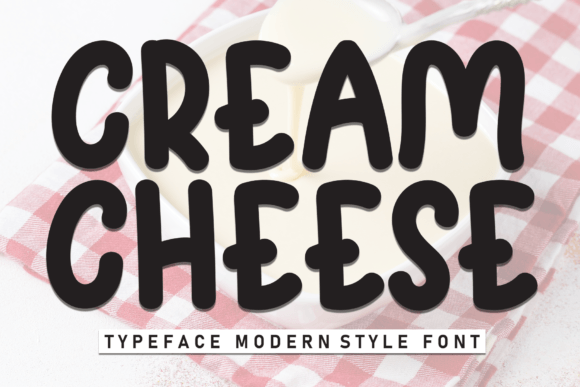
Introducing Cream Cheese Font, a sweet and friendly handwritten display font that's sure to add a touch of charm to any design. Blending classic beauty with a modern twist, this font exudes a playful elegance that makes it perfect for a wide range of creative projects.
Crafted with the utmost care and attention to detail, Cream Cheese Font is meticulously designed to provide unparalleled readability and visual appeal. Its smooth curves and flowing lines create a sense of movement and energy, capturing the viewer's attention and drawing them into your design. Whether you're working on a wedding invitation, a greeting card, a social media post, or any other creative project, Cream Cheese Font's captivating presence is guaranteed to make an impact.
With its timeless appeal and universal charm, Cream Cheese Font has become a favorite among designers and creatives worldwide. Its versatility knows no bounds, making it the perfect choice for a wide range of projects, including:
* Wedding invitations and save-the-dates
* Greeting cards and thank-you notes
* Logos and branding materials
* Flyers and posters
* Social media posts and graphics
* Website designs and blog headers
* Product packaging and labels
* T-shirt designs and other merchandise
With Cream Cheese Font, the possibilities are endless. Let your creativity soar and create stunning designs that resonate with your audience. Join the countless designers and creatives who have discovered the magic of Cream Cheese Font and elevate your projects to new heights.
In addition to its aesthetic appeal, Cream Cheese Font is also highly functional, ensuring a seamless user experience across all platforms. Its crisp and clean lines ensure optimal readability, even at small sizes, making it the perfect choice for use on websites, social media, and other digital projects.
Whether you're a seasoned design professional or just starting out, Cream Cheese Font is the perfect addition to your creative arsenal. Its versatility, user-friendliness, and stunning aesthetics make it the ideal choice for creating impactful designs that leave a lasting impression.